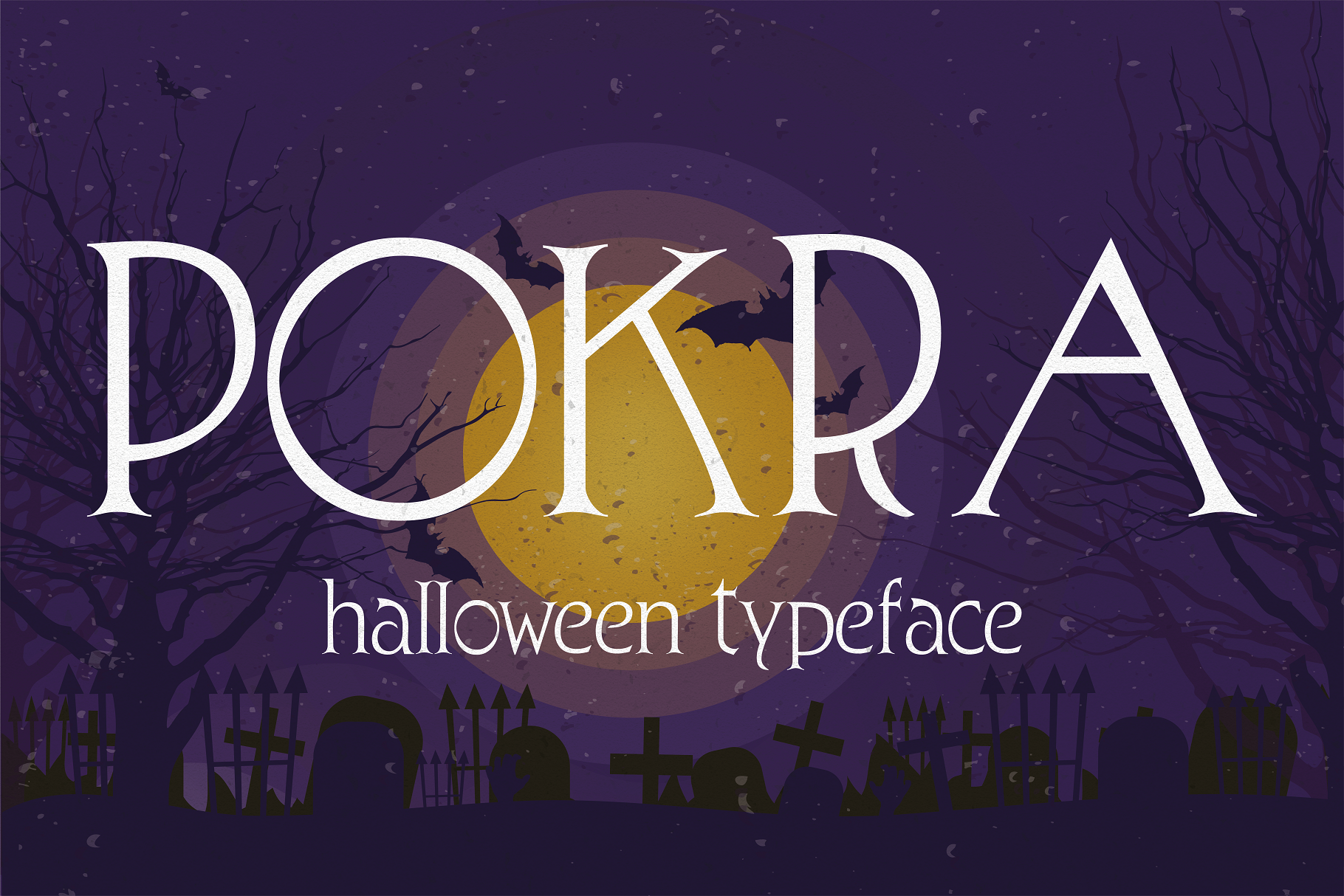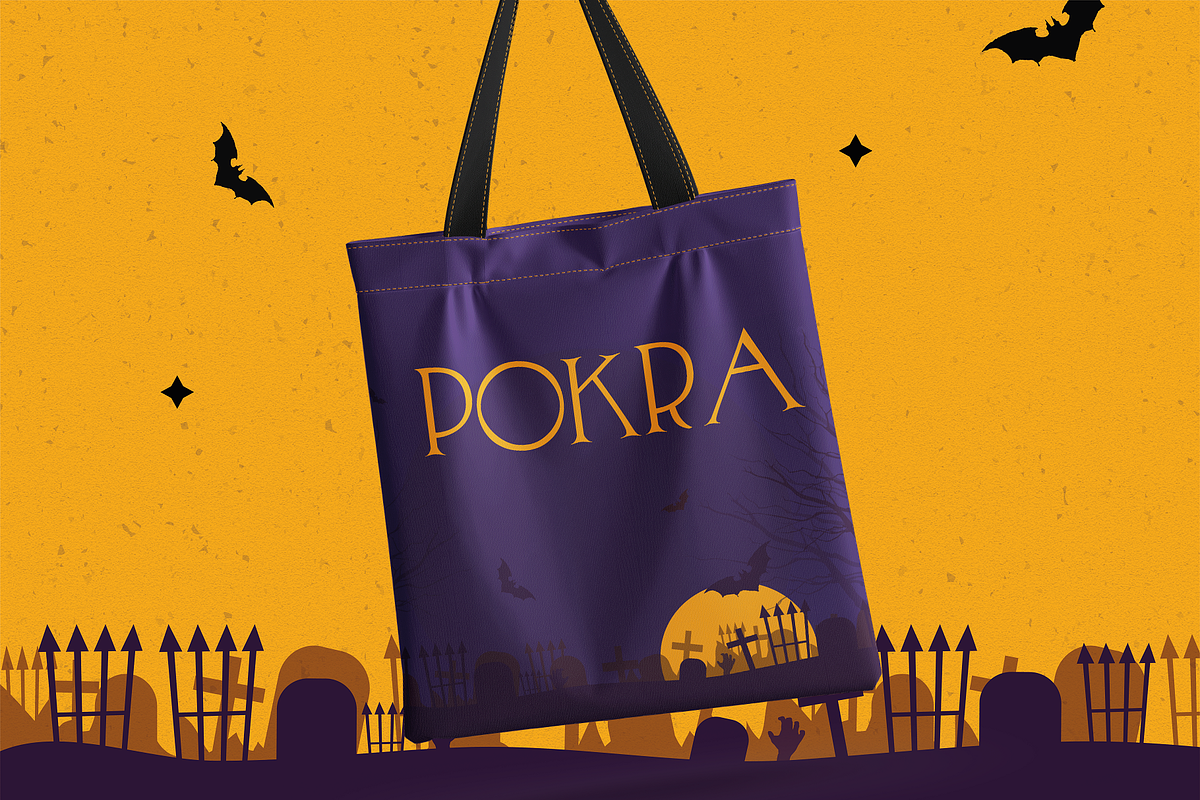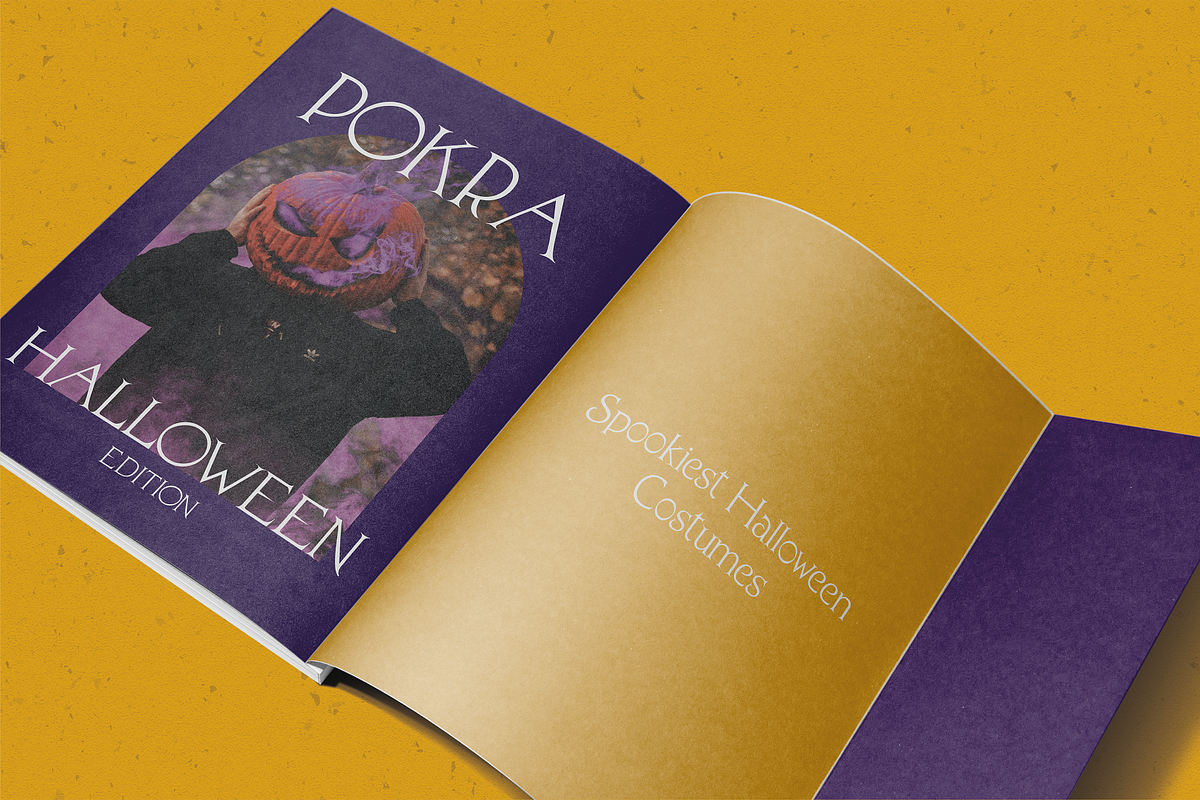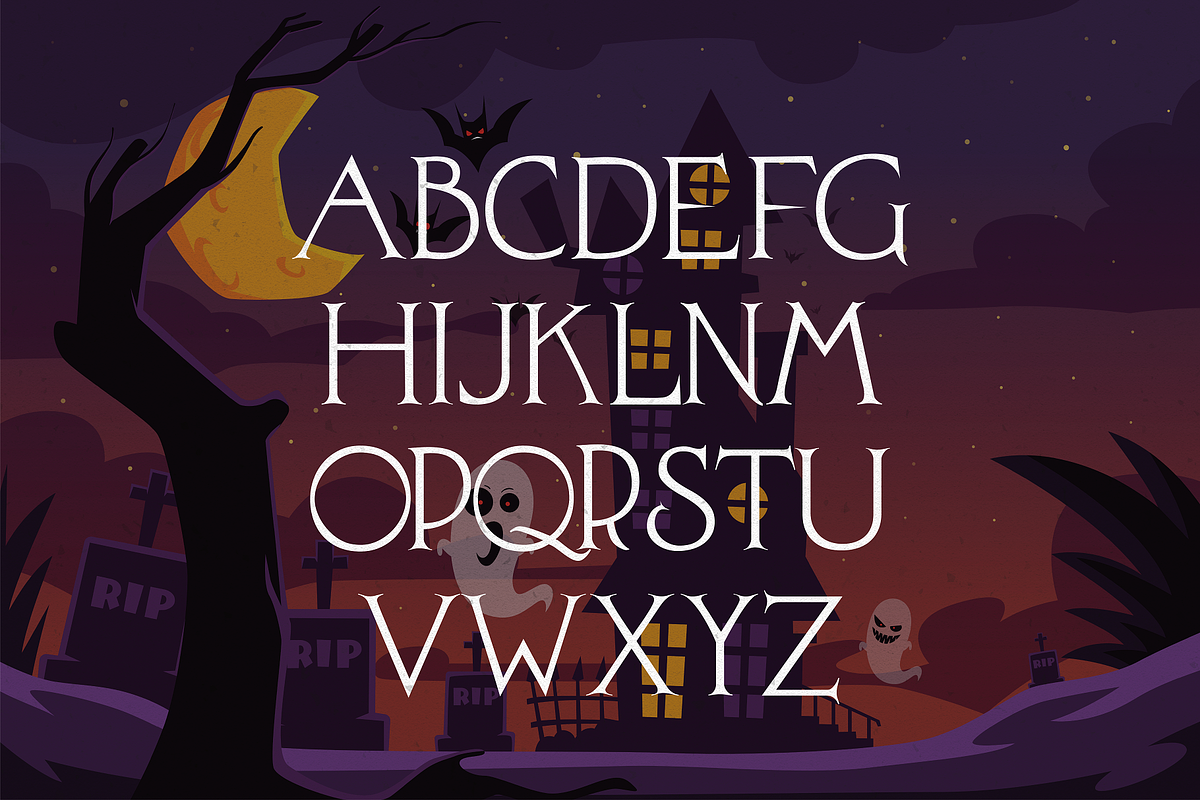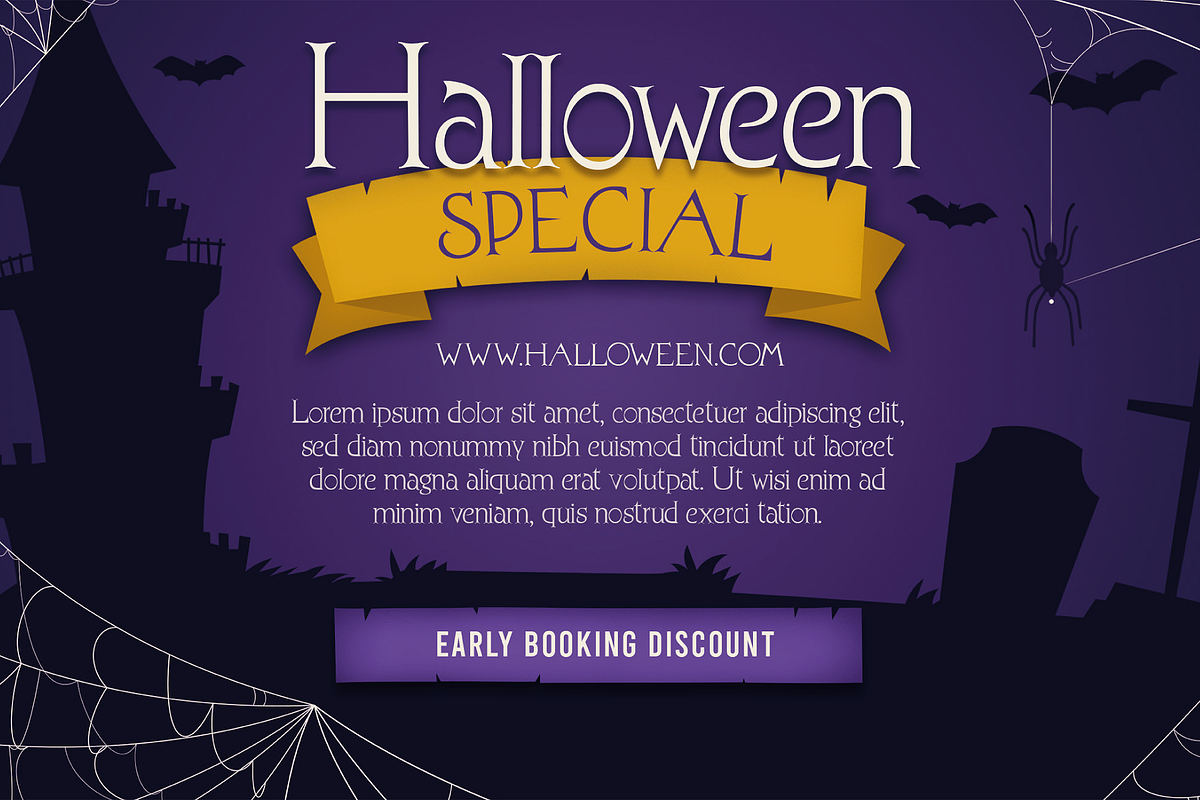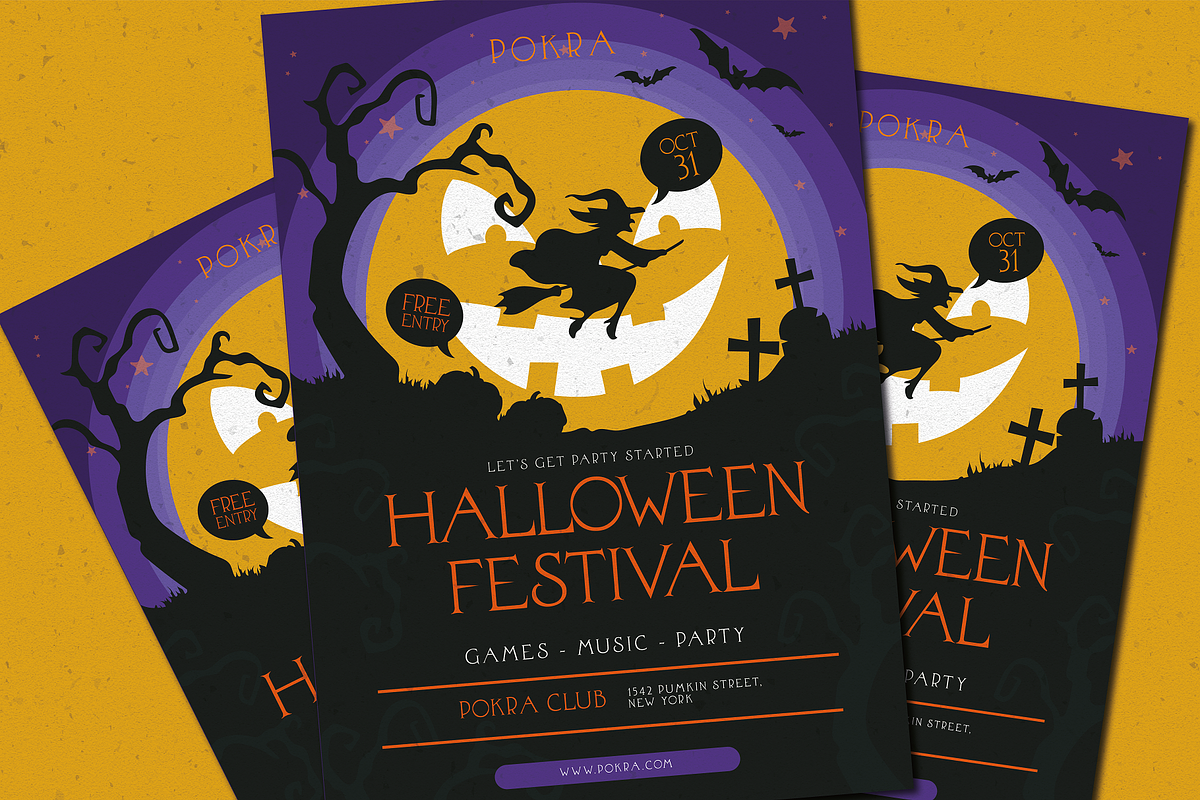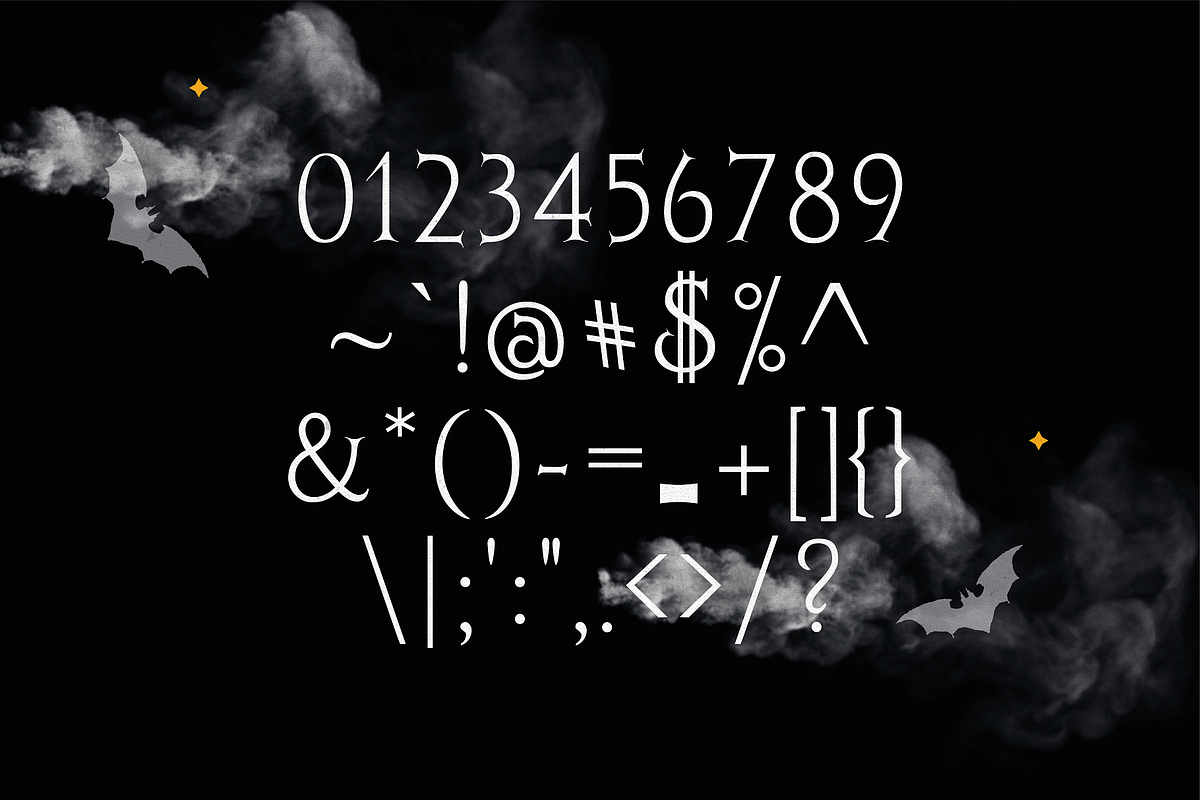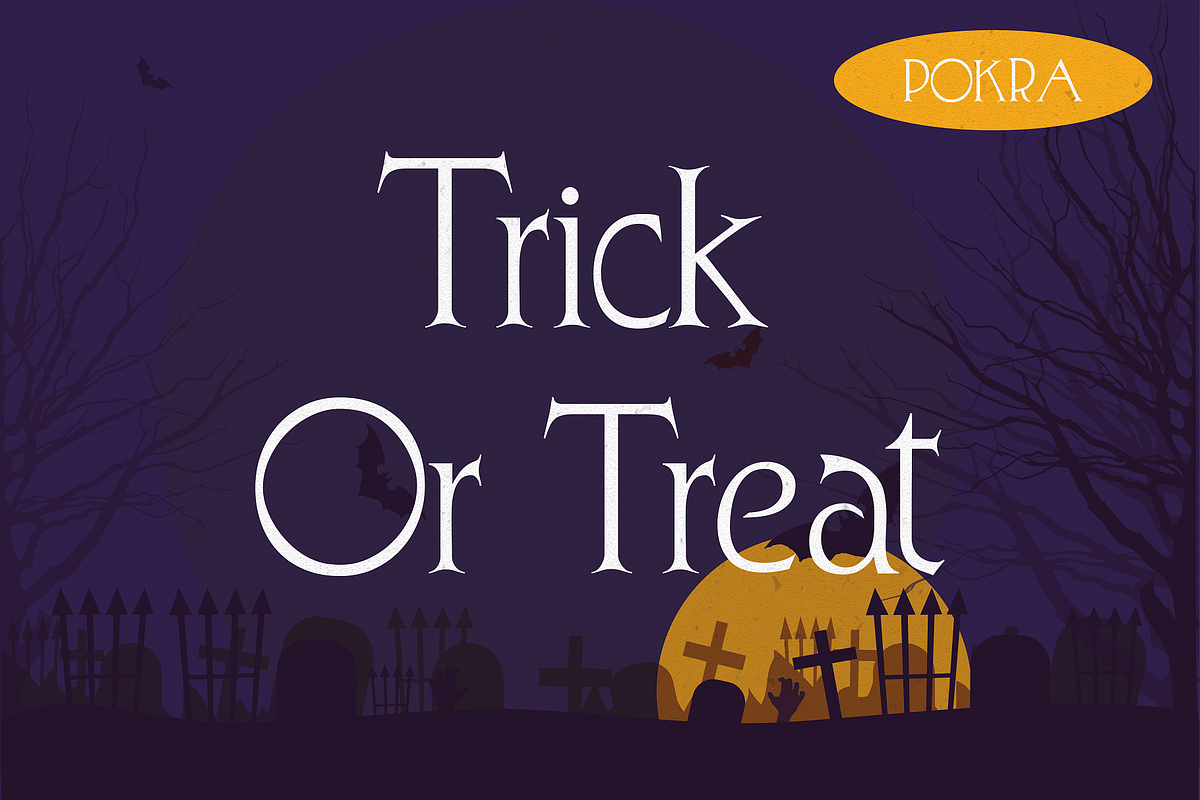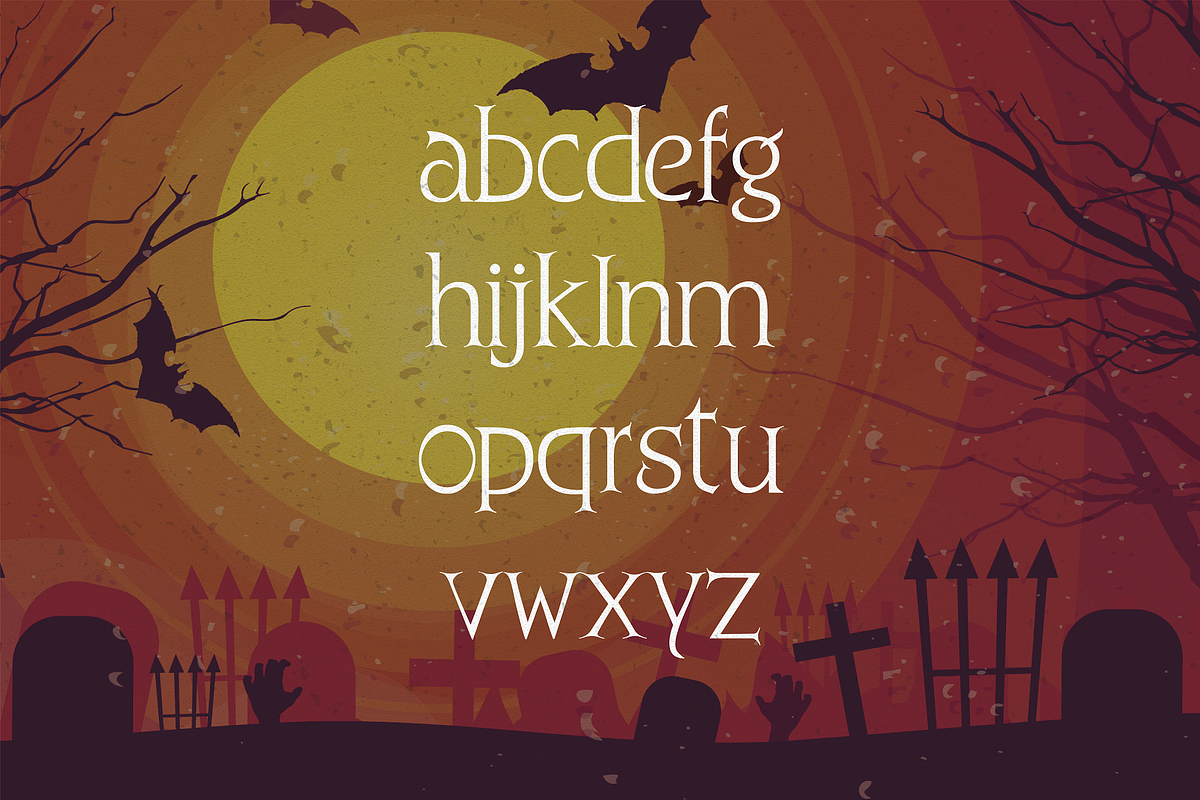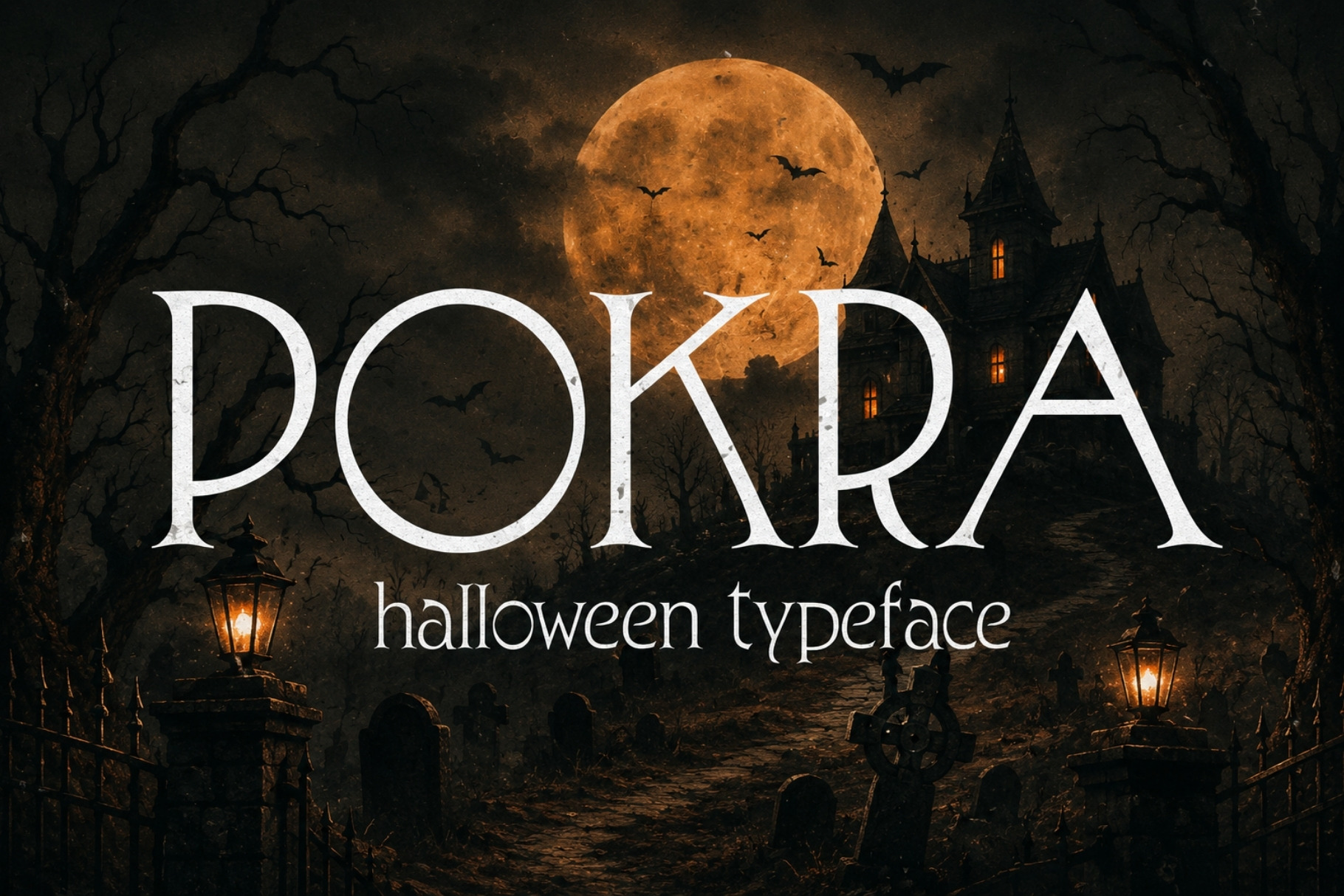
Pokra - Halloween Typeface
Pokra is a whimsical Halloween font perfect for creating fun and catchy designs. Use it for flyers, book covers, headlines, posters, stationary, web design, t-shirt designs, stickers, packaging branding, and much more. Take your creative ideas further with Pokra!